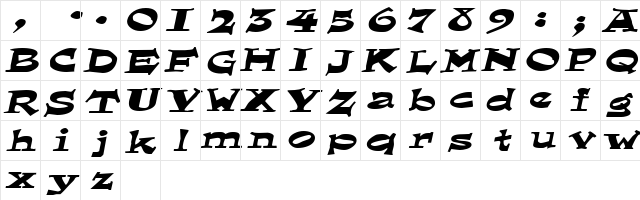
LoungerExtended Oblique Font Preview
LoungerExtended Oblique
Design Context for LoungerExtended Typeface
LoungerExtended is a composed and adaptable typeface that performs quietly and consistently across a wide range of design contexts. The dynamic lean of this cut emphasises speed and emphasis in any layout.
Pro Tip: Use LoungerExtended for emphasis, pull quotes, and subheadings where its slanted energy can add rhythm to the layout.